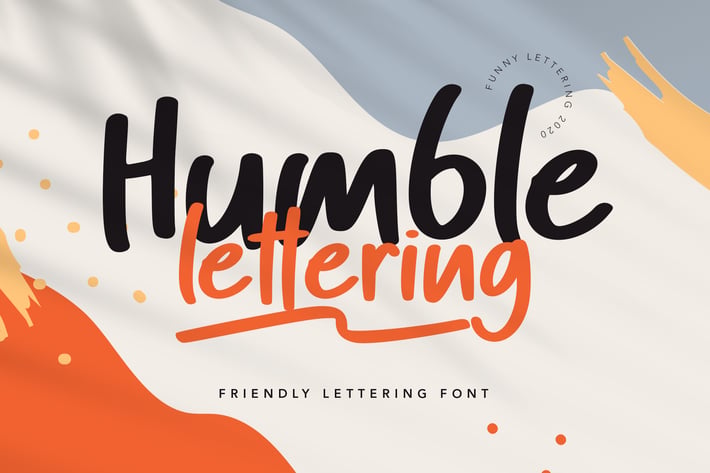
Humble Font
Humble lettering is natural handwritten font, made carefully with young sense. This font is full of spirit, great for any young design project, good for logo, music, clothing, or any advertisement.